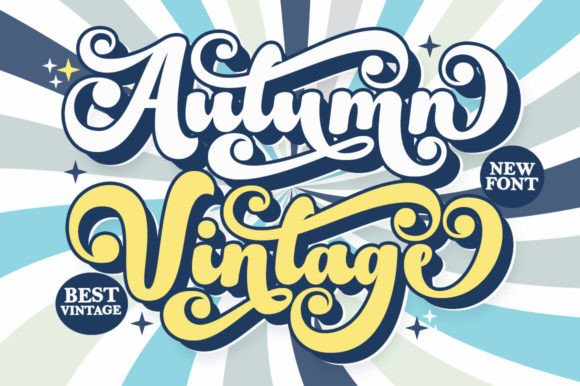
The Magic of Autumn Vintage Font: A Designer’s New Best Friend
I still remember the design project that led me to discover the Autumn Vintage Font. I was working on a fall-themed invitation for a client’s wedding, and I was struggling to find the perfect font that would capture the cozy, nostalgic feel of the season. The client wanted something that would transport their guests back to a bygone era, but I was coming up blank. That’s when I stumbled upon Autumn Vintage, and it was love at first sight! ✨
So, what makes Autumn Vintage so special? Here are a few things that I absolutely adore about this font:
- ✅ Playful, nostalgic vibe that’s perfect for fall and winter designs
- ✨ Masterfully designed with a high level of craftsmanship
- 💫 Highly versatile and can be used for a wide range of design projects
- 📚 Excellent OpenType features, glyphs, and stylistic alternates
Of course, no font is perfect, and Autumn Vintage is no exception. Here are a few quirks to keep in mind:
- ⚠️ Some users may find the font a bit too ornate or over-the-top for certain projects
- 🤔 Limited use for body text, as it’s primarily designed for display purposes
The Story Behind Autumn Vintage
According to the font’s designers, Autumn Vintage was inspired by the nostalgic feel of vintage advertisements and signage from the 1950s and 60s. The goal was to create a font that would evoke a sense of warmth, comfort, and playfulness – and I think they succeeded! 😊
Q: What type of projects is Autumn Vintage best suited for?
A: Autumn Vintage is perfect for display purposes, such as titles, headings, and short phrases. It’s ideal for projects like invitations, posters, flyers, and social media graphics.
Q: Can I use Autumn Vintage for body text?
A: While Autumn Vintage is a beautiful font, it’s not recommended for body text. It’s primarily designed for display purposes and may be too ornate or over-the-top for longer blocks of text.
Q: Does Autumn Vintage come with OpenType features?
A: Yes! Autumn Vintage comes with a range of OpenType features, including glyphs, stylistic alternates, and more. These features allow you to customize the font to suit your design needs.
Q: Is Autumn Vintage easy to read?
A: Autumn Vintage is a display font, so it’s designed to be eye-catching rather than easy to read. While it’s still legible, it’s best used in short phrases or titles rather than longer blocks of text.